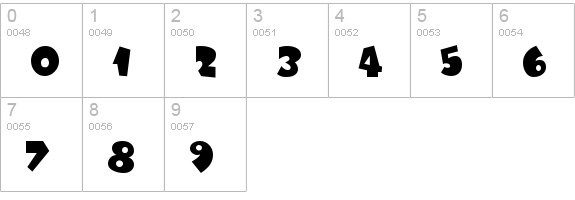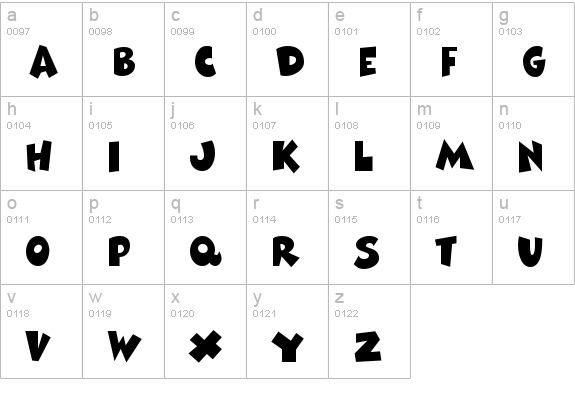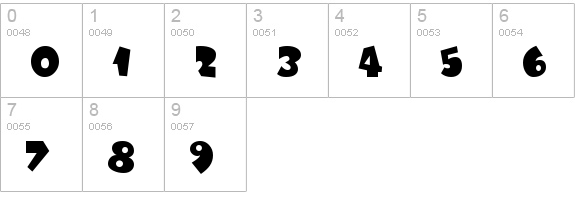
Comix Heavy BT is a heavy, high-impact variant in the Comix typeface family \xE2\x80\x94 well suited to high-impact headlines, posters, and display advertising.
Comix Heavy BT is a bold and dynamic font that exudes a sense of strength and impact. Its thick strokes and sharp edges make it perfect for eye-catching headlines, titles, and logos. This font is versatile and can be used in a variety of design projects, from posters to packaging.